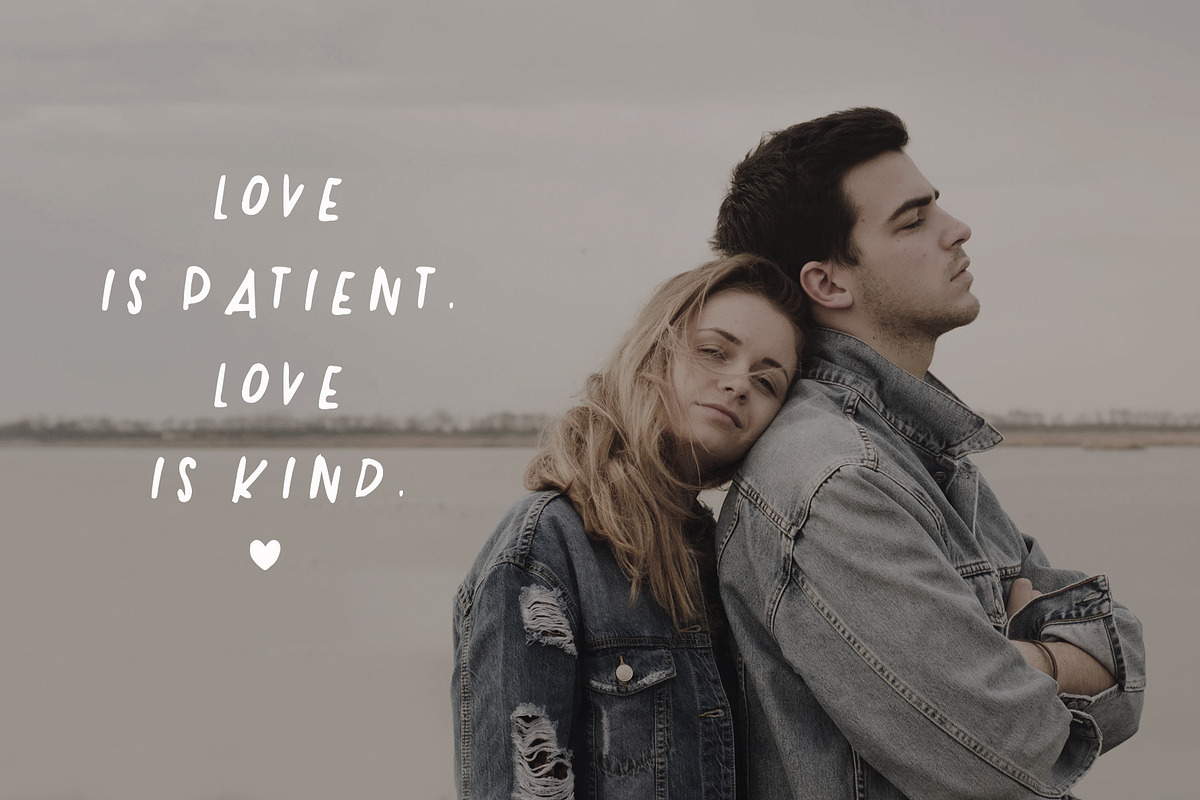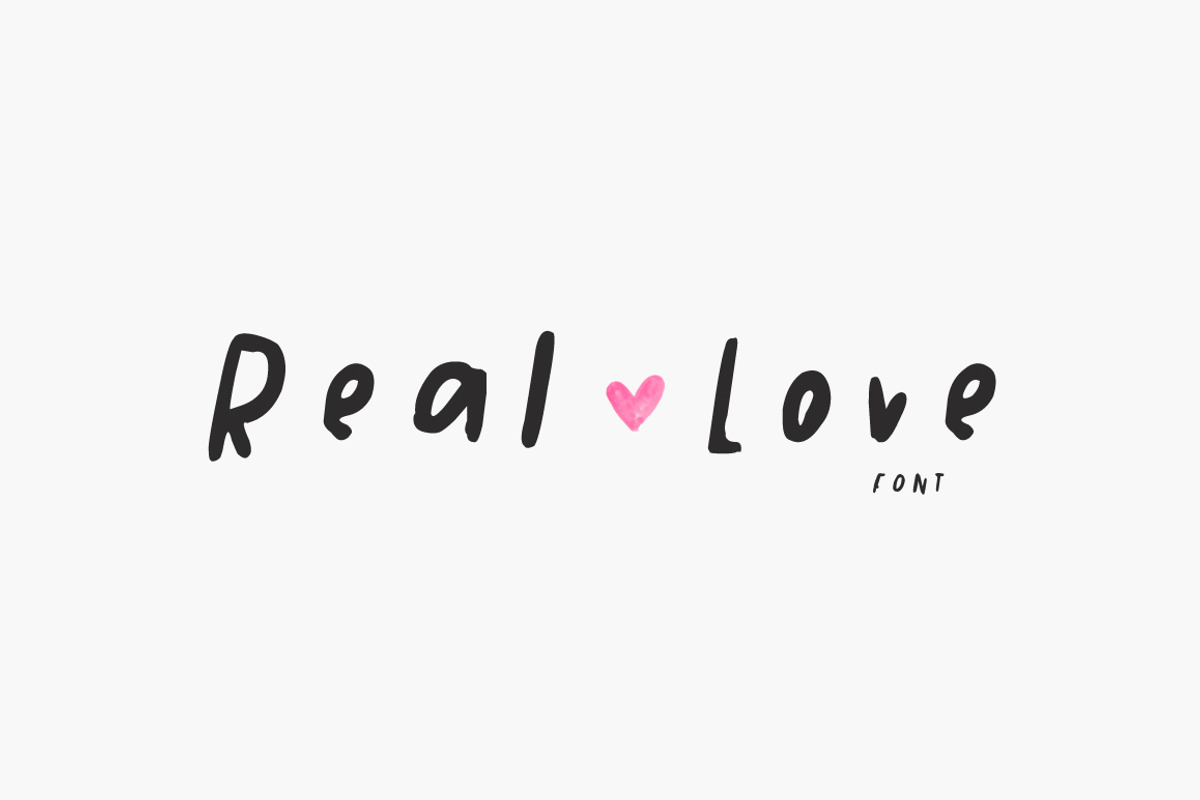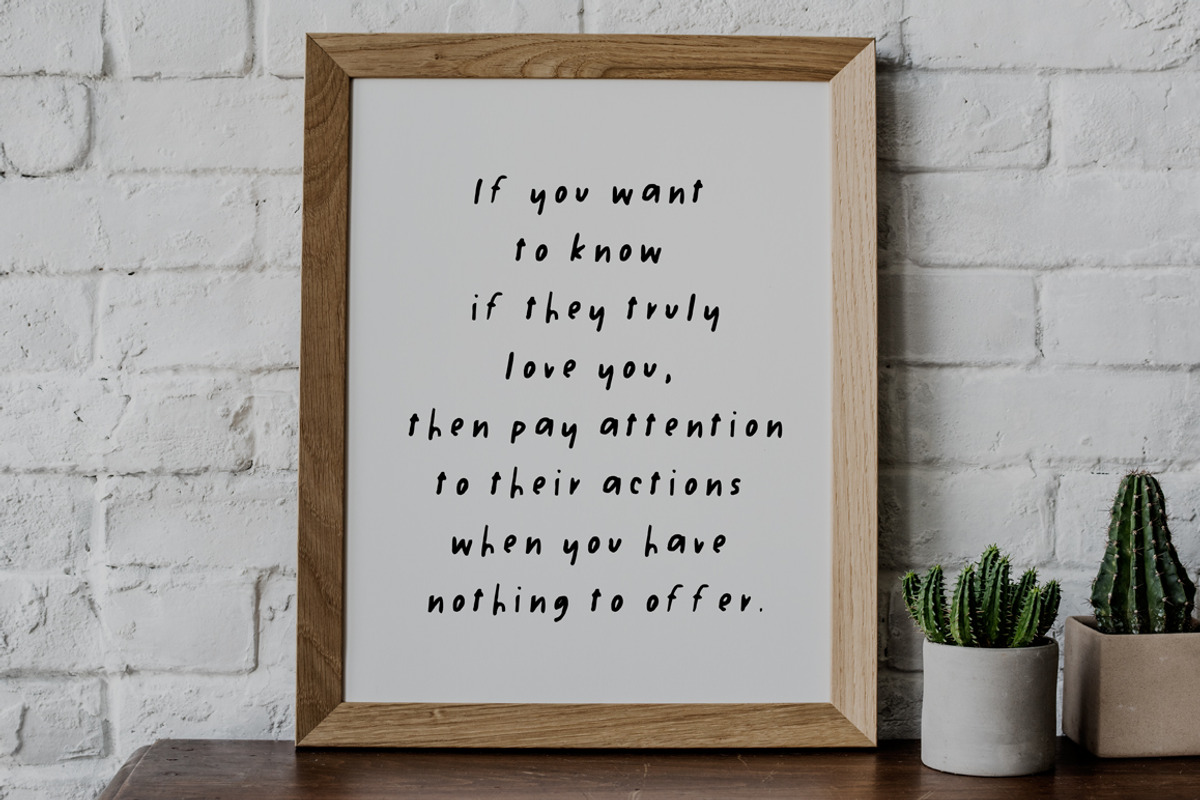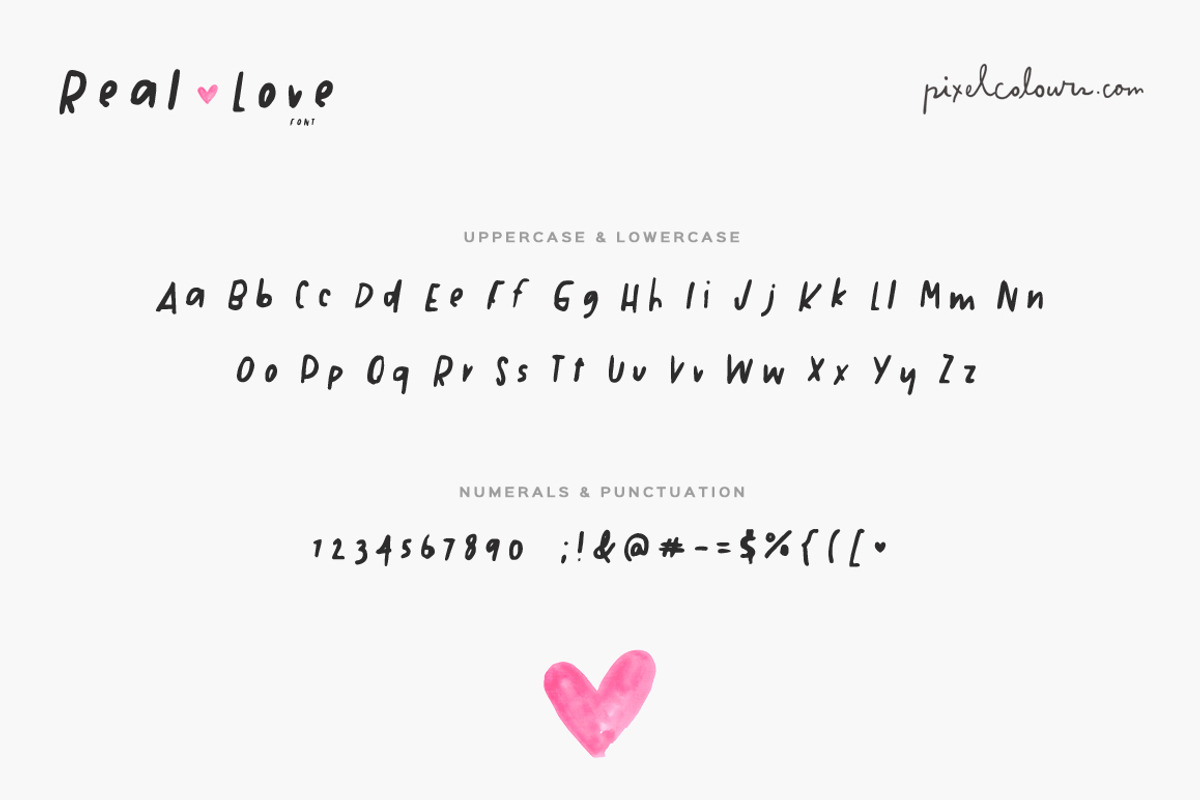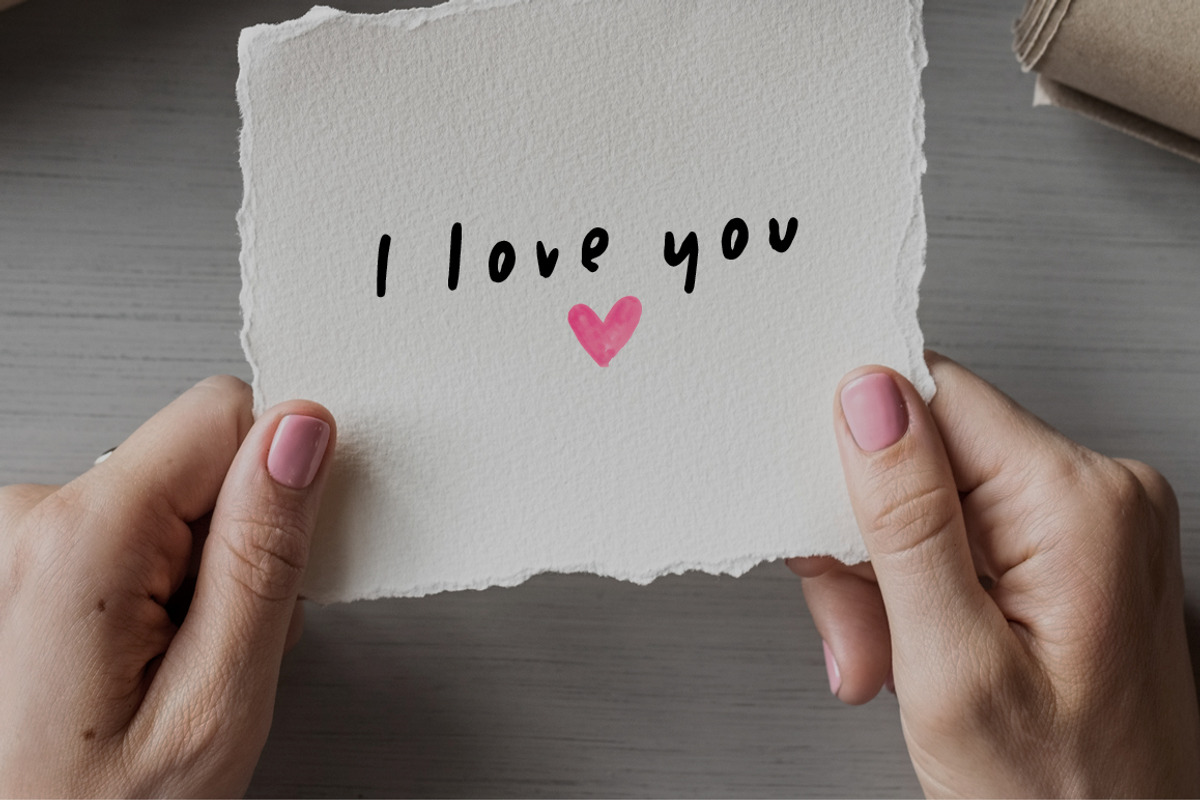
Real Love Whimsical Handwritten Font
Real Love is a handwritten font with a cute style that looks great as a display font or in small texts. Use it to create quotes, posts, business cards or any project that needs a sweet handmade style.